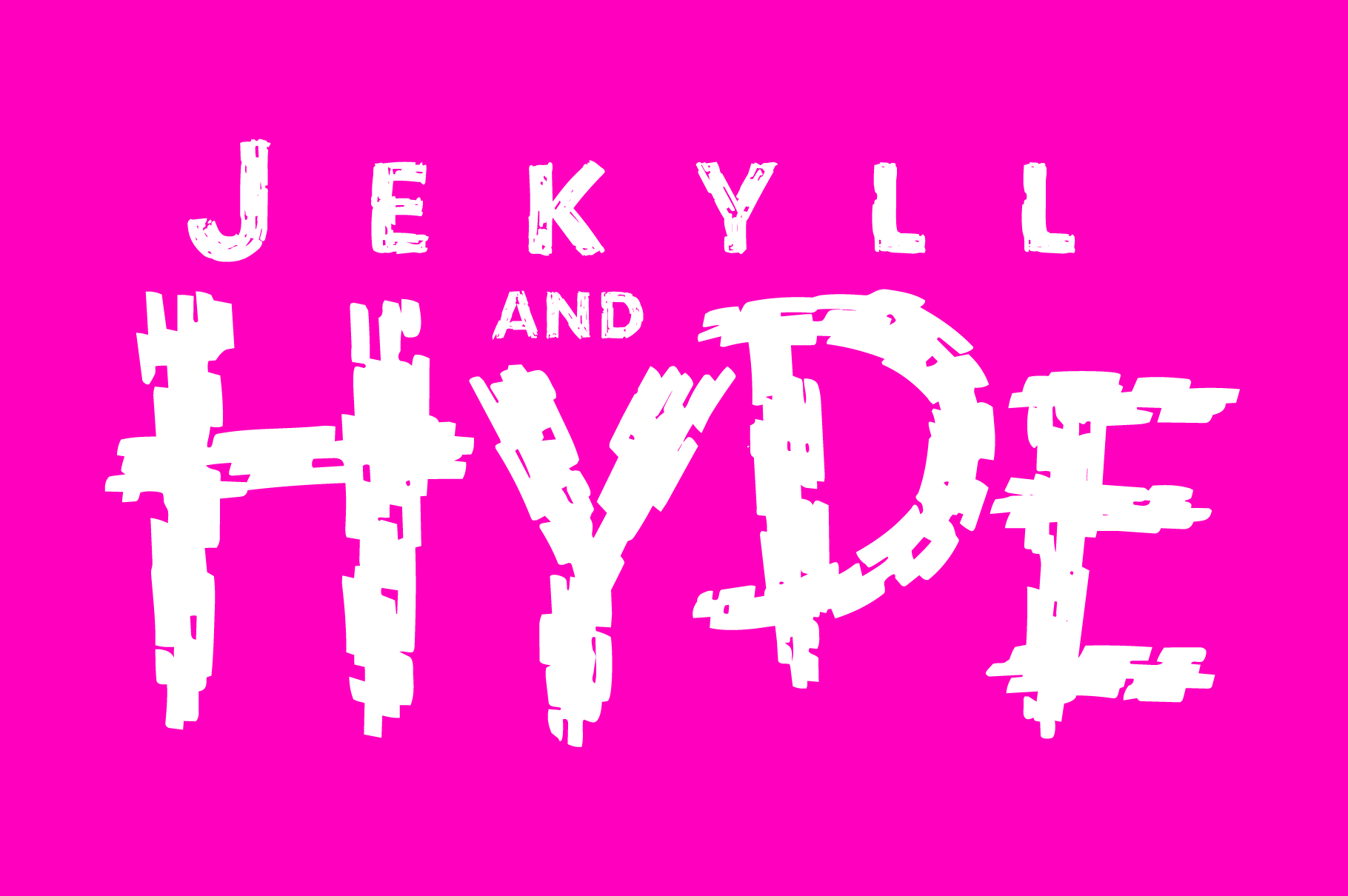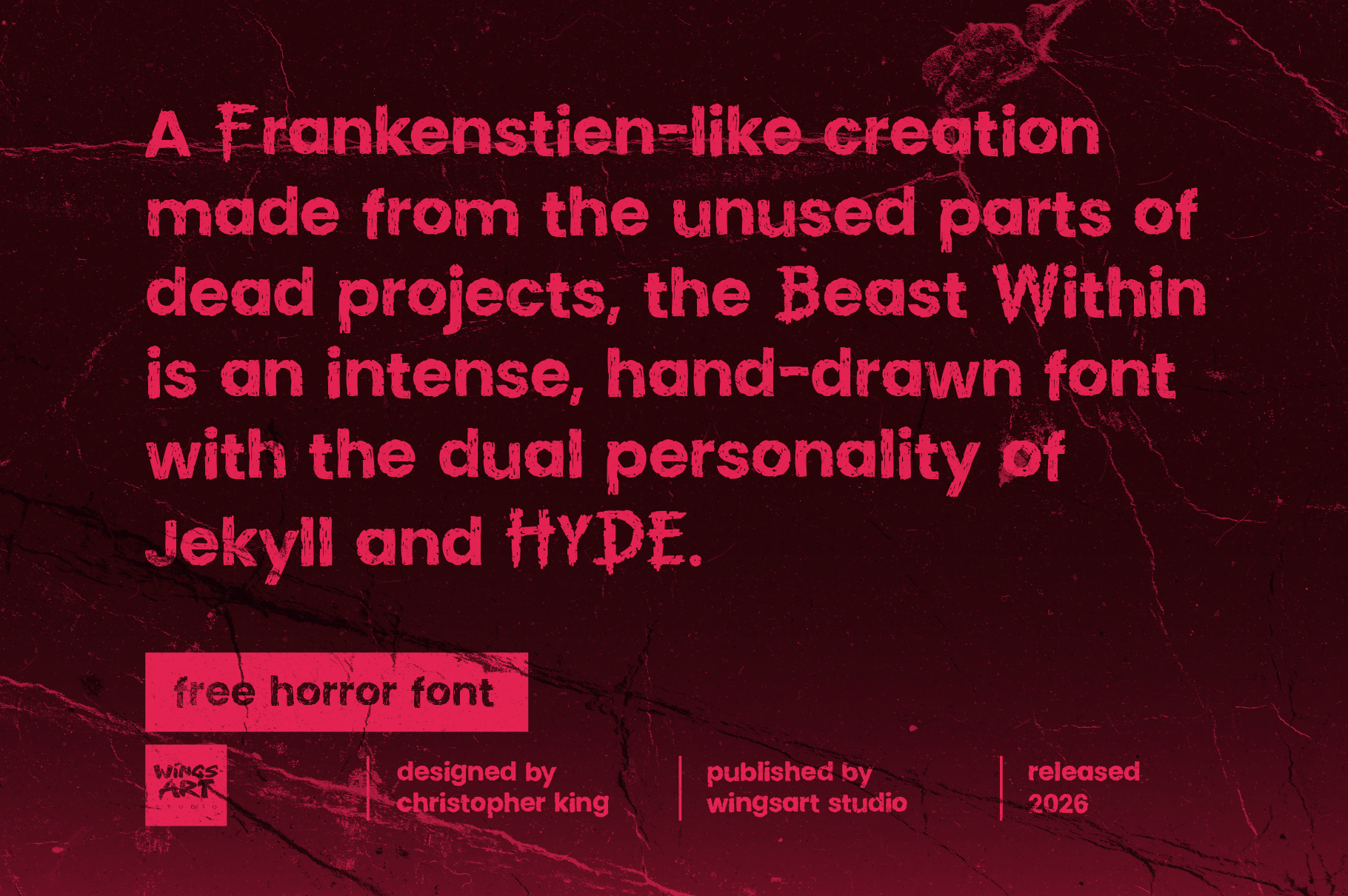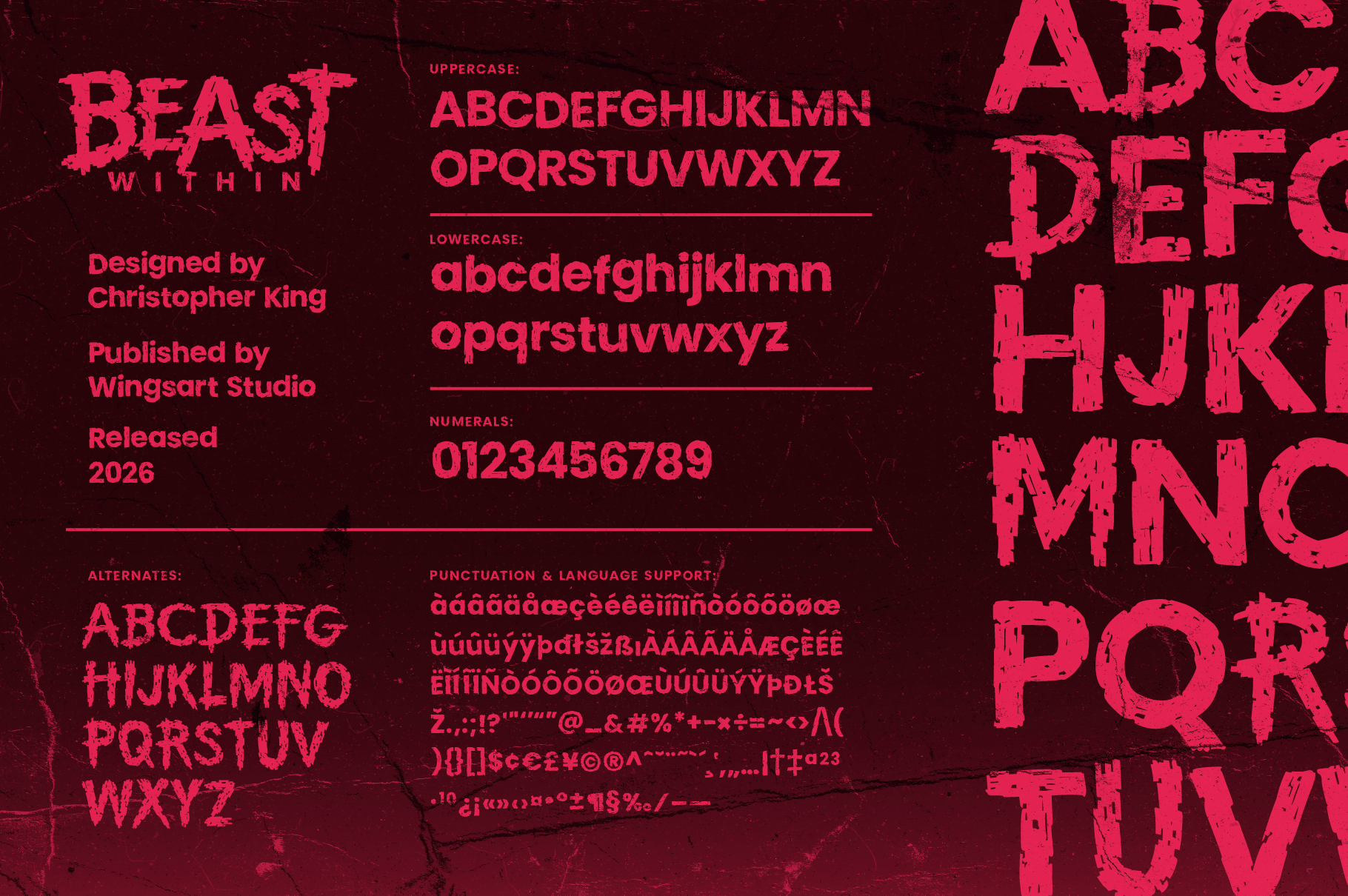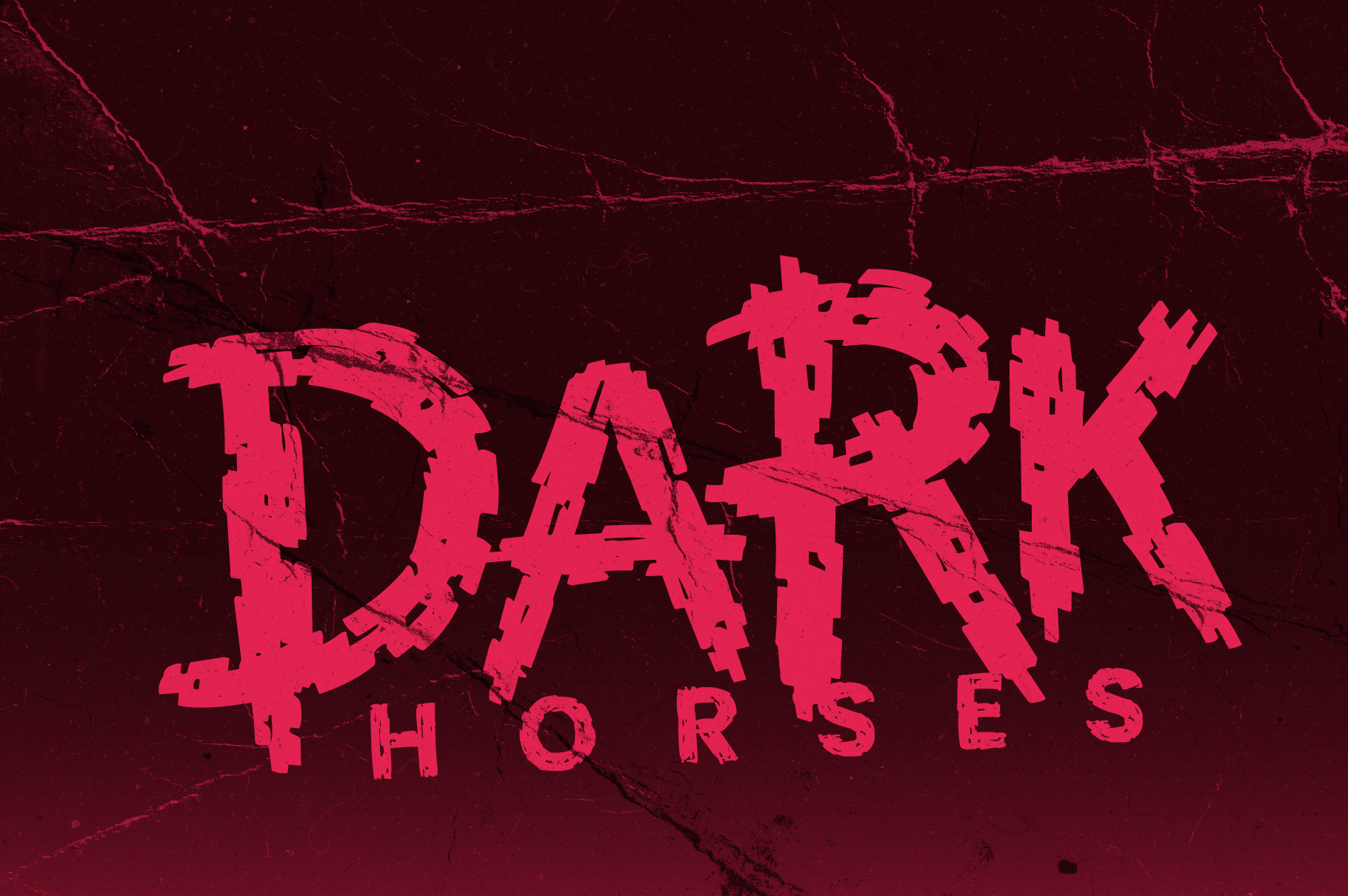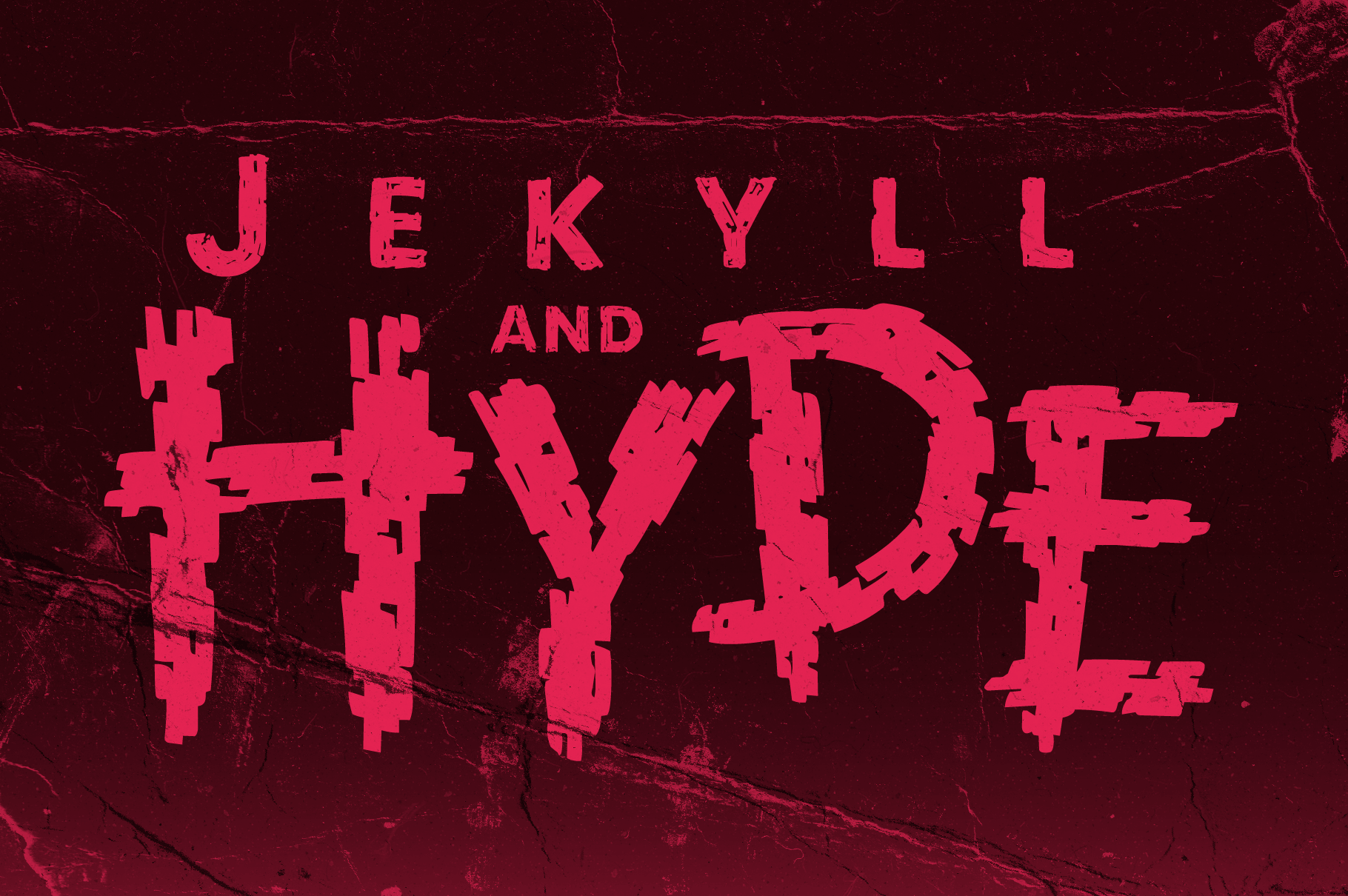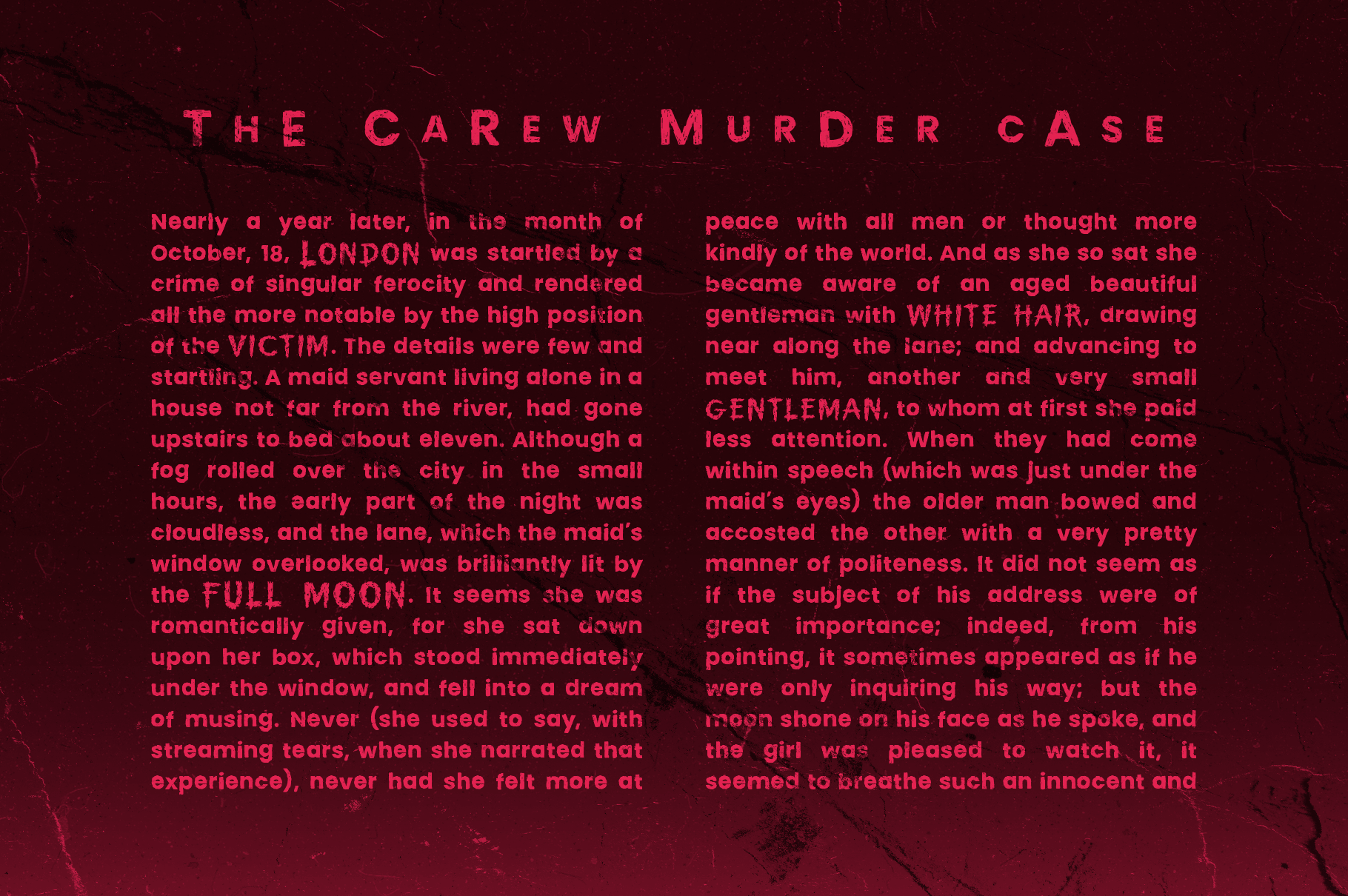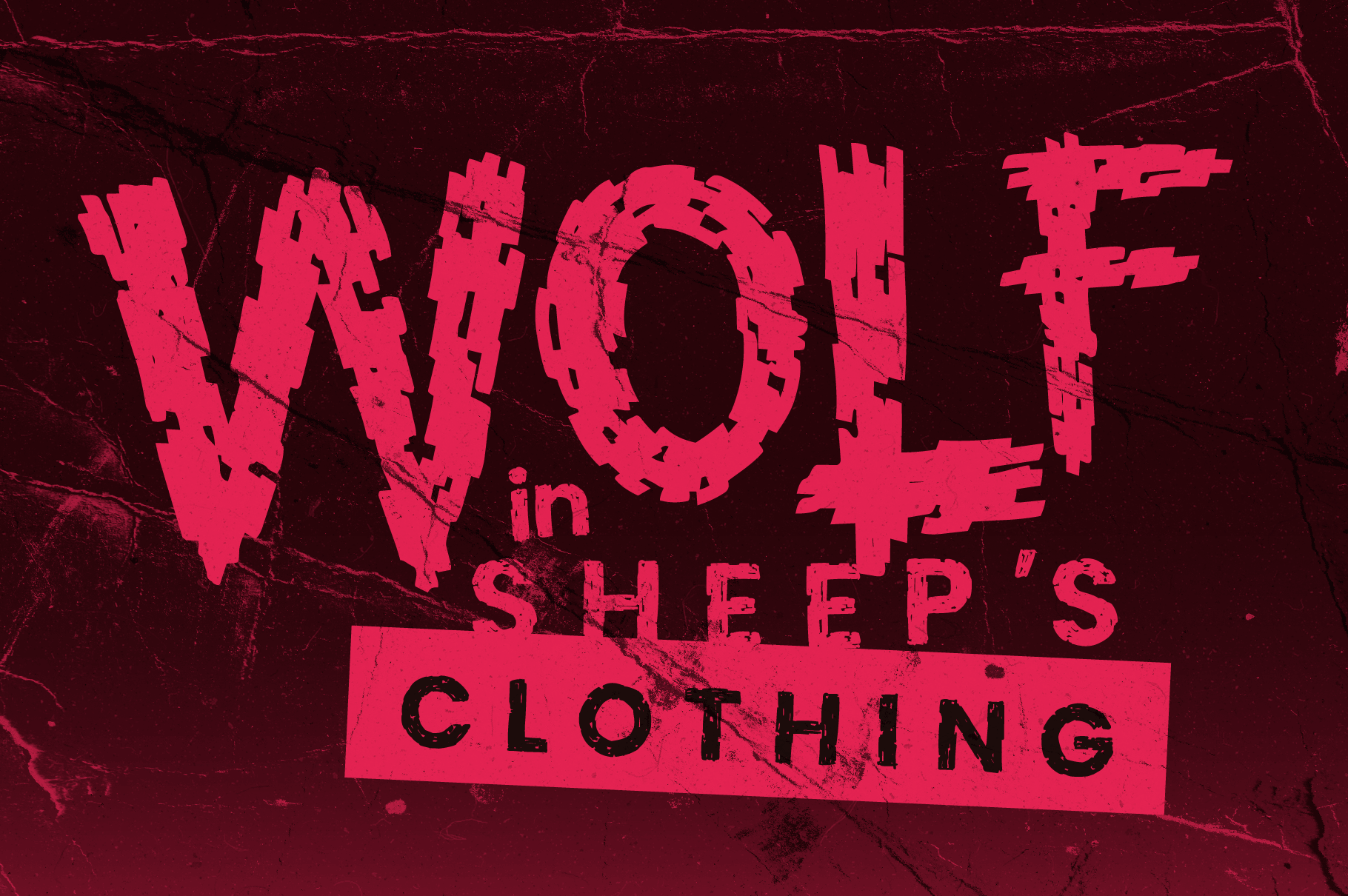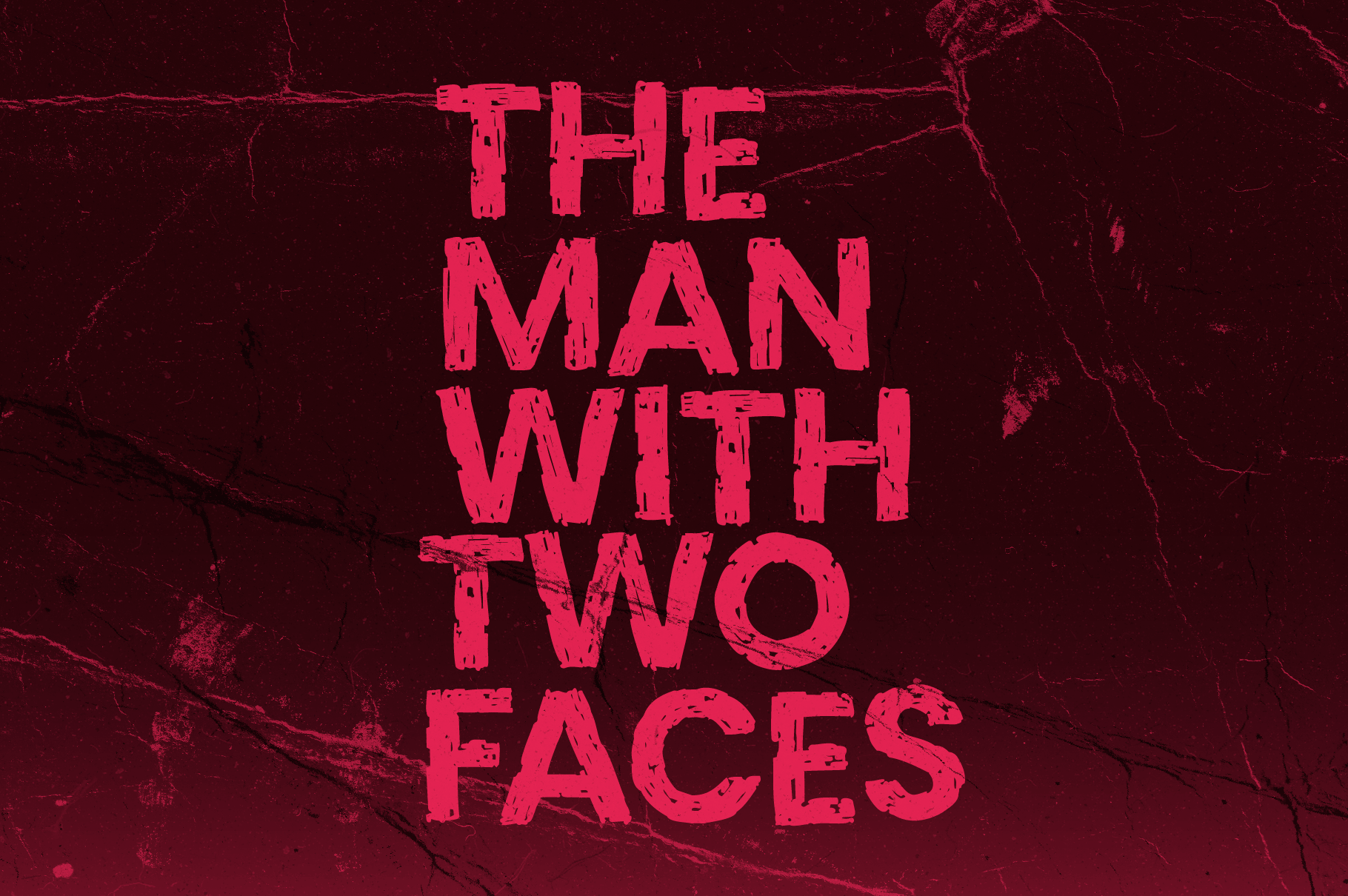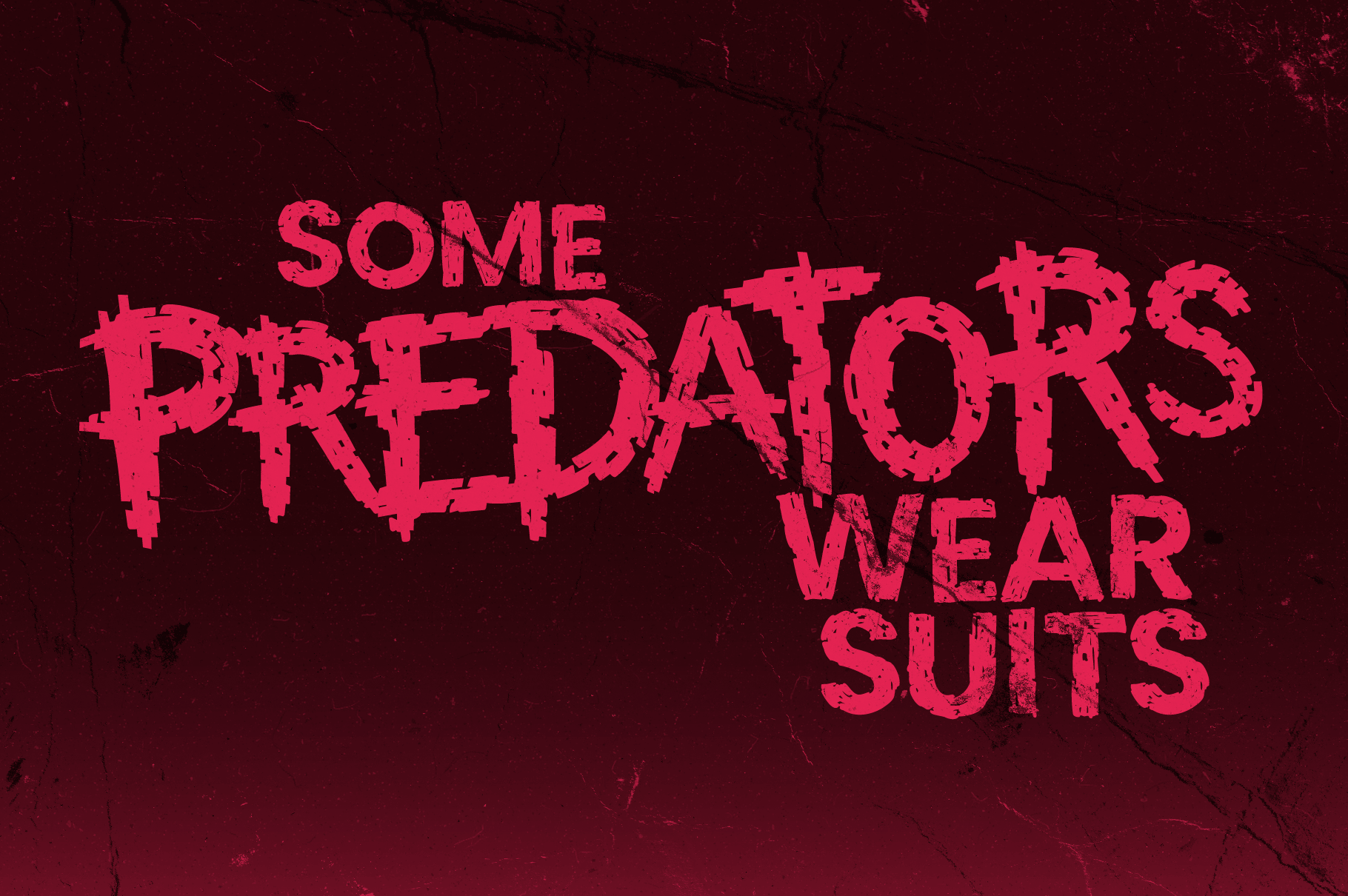
Beast Within | Textured Horror Font Pair
A Frankenstein-like creation made from the unused parts of dead projects, Beast Within is an intense, hand-drawn font with the dual personality of Jekyll and Hyde.
On the surface, it appears to be a restrained sans-serif font, albeit with a nervous energy, but look harder and you’ll find the horror that lies beneath.
Functionally, it includes a complete uppercase and lowercase alphabet, numerals, symbols, and language support, plus beastly alternative characters. It is an experimental design that combines abandoned projects into a new, hideous whole. Even better: it’s totally free!
• Regular
• All Caps
• Unleashed